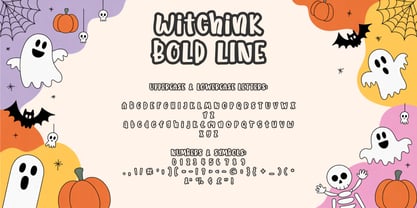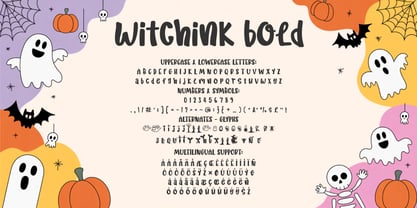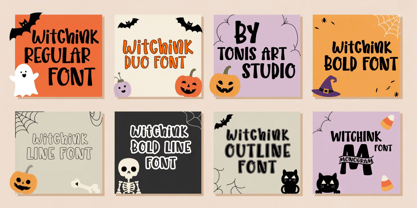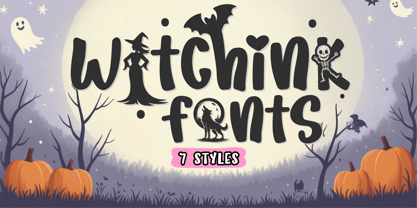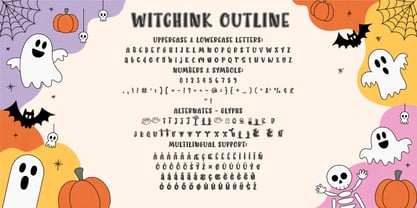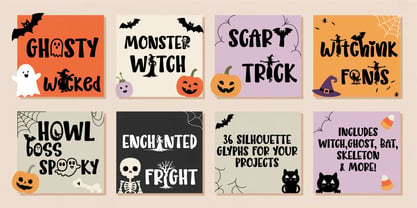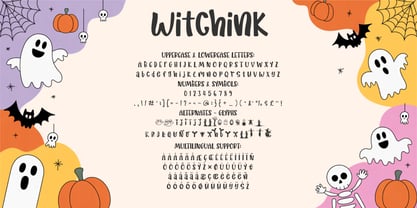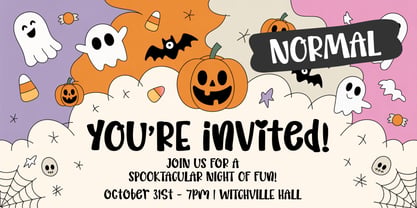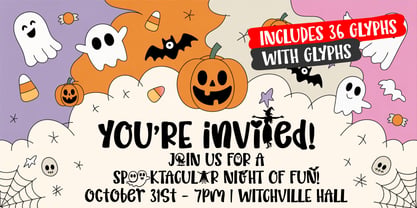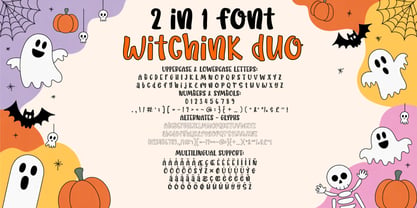
Witchink
Die Schriftfamilie Witchink wurde von Tony Balios entworfen und von Tonis Art Studio veröffentlicht. Witchink enthält 7 Stile und Familienpaketoptionen. Mehr über diese Familie
Witchink Font Bundle is a whimsical and spooky Halloween-themed display font designed to bring charm, fun, and character to your seasonal projects. Hand-drawn with playful curves and quirky silhouettes, this font family captures the spirit of Halloween in every letter. It's perfect for crafters, designers, and anyone looking to add a touch of spooky cuteness to their work.
The bundle includes 7 distinctive font styles: Regular, Bold, Duo, Line, Bold Line, Outline, and Monogram, offering a wide range of creative possibilities. Each style is thoughtfully designed to work both independently and in combination, allowing for dynamic layering, bold statements, or subtle accents. Whether you're making Halloween t-shirts, trick-or-treat bags, invitations, party signage, or digital designs for social media, Witchink provides a cohesive and playful typographic solution.